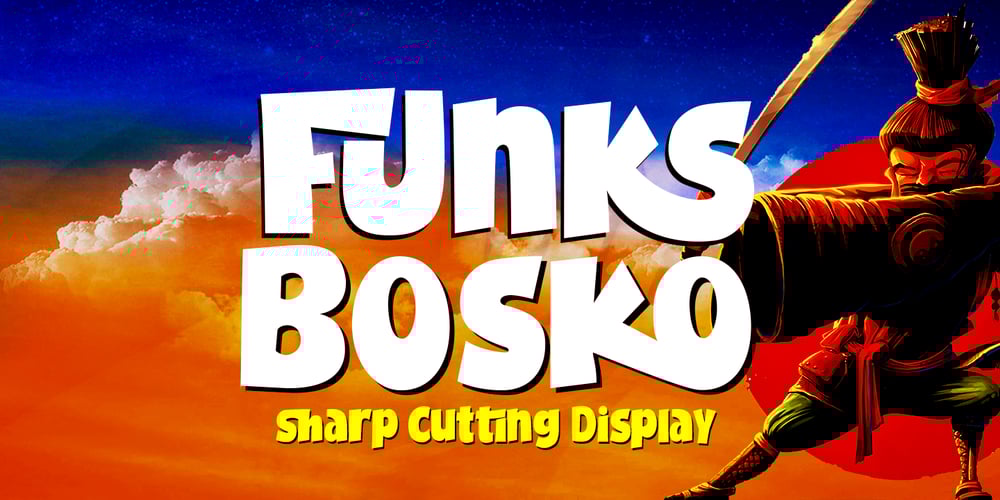
Funks Bosko Font Family was designed by Bustami Harun and published by Genesislab. Funks Bosko contains 1 styles and family package options. Funks Bosko is a sharp and bold display font, a trendy font that is very unique with a blend of modern character ligatures, and in my opinion, this product matches the theme of the teaser display in every headline design, business card, leaflet, magazine, children’s event, and brand screen printing.Available Fonts:Let’s take a look and be happy to hear the reviews. If you have any suggestions about this product, tell your work environment if this product is good for them.Thank you so much for all!!